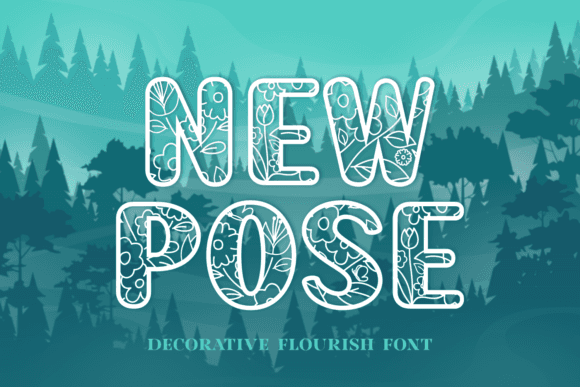
New Pose Font for Headlines, Posters and Branding Projects
New Pose is a display FONT designed to command attention in headlines, branding, and editorial layouts. Its modern structure and stylized strokes give it a dynamic, high-energy character that translates across digital and print mediums.
This font is built for visibility and personality, whether you're creating poster artwork, product packaging, or brand assets. Its readability and bold design make it a top choice for impactful messaging in both minimalist and expressive compositions.
- Magazine covers and editorial spreads
- Branding kits and business logos
- Event posters and concert graphics
- Merchandise tags and signage
- Social media headlines and quote cards
- High-impact display style for visual strength
- Versatile for print and digital branding
- Clean outlines for flawless rendering